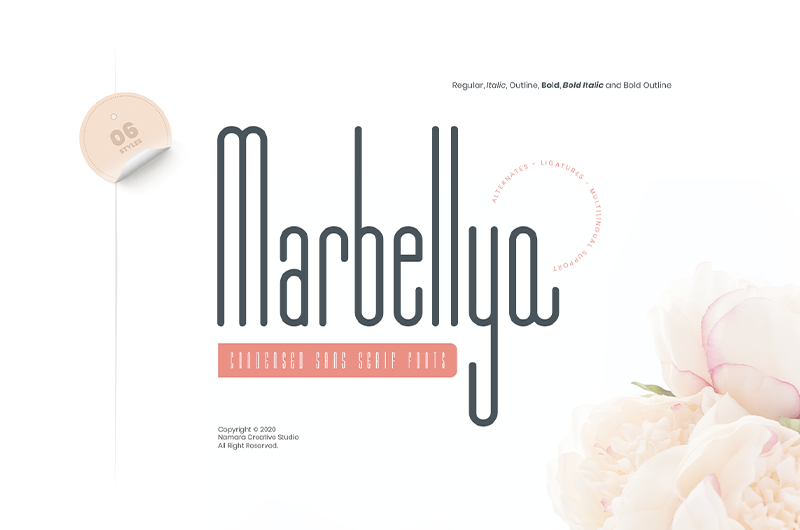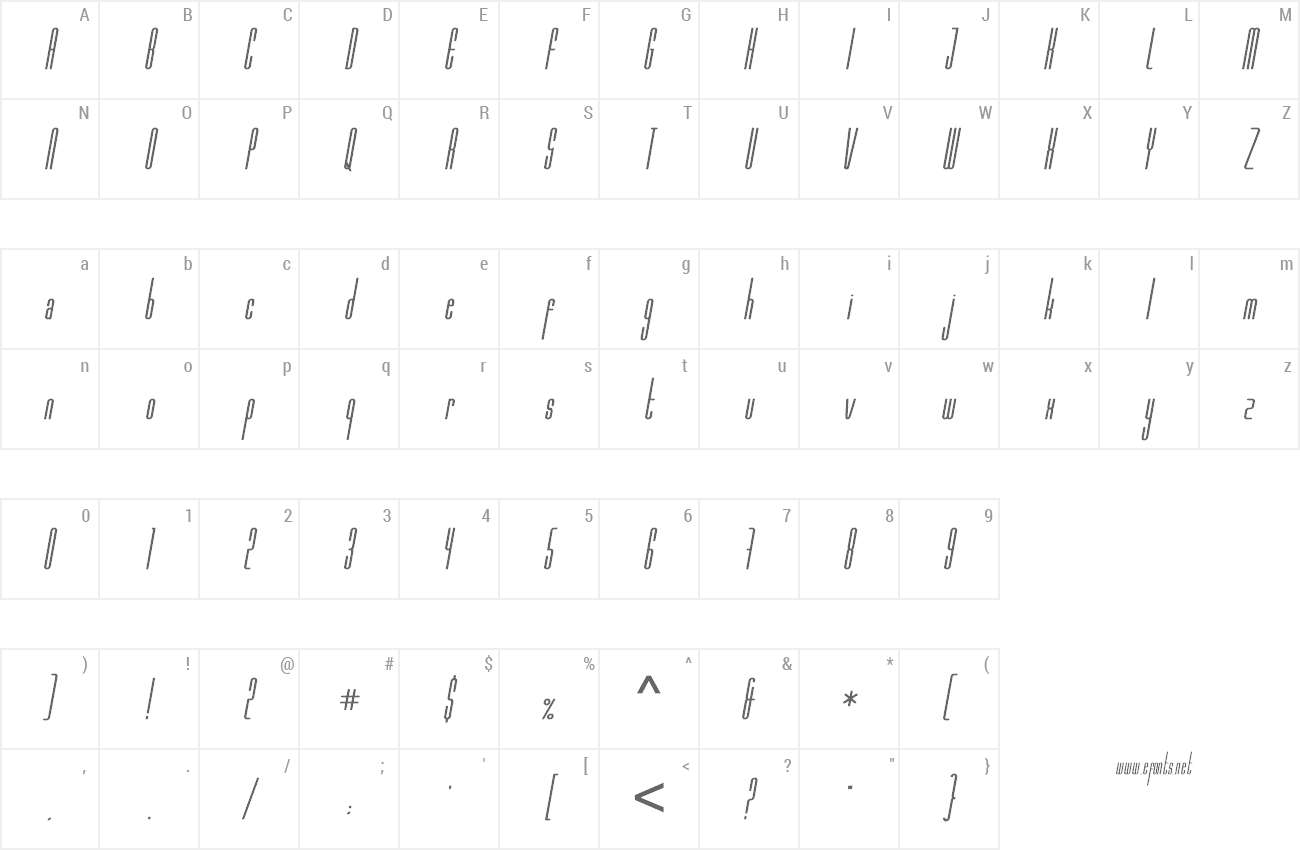
Preview and download Marbellya Font. Created by Namara Creative Studio in Basic Sans serif styles with Free for personal use license.
Marbellya is Condensed Sans Serif Font with luxurious style. Available in 06 style : Regular, Italic, Outline, Bold, Bold Italic and Bold Outline. included alternate, ligature and multilingual support. By installing or using this font, you are agree to the Product Usage Agreement: - This font is already FULL VERSION but ONLY for PERSONAL USE. NO COMMERCIAL USE ALLOWED! - Link to purchase commercial license : https://onedsgn.com/product/marbellya/ - If you need a custom license please contact us at namaracreativestudio@gmail.com - Any donation are very appreciated. Paypal E-Mail for donation : namaracreativestudio@gmail.com |